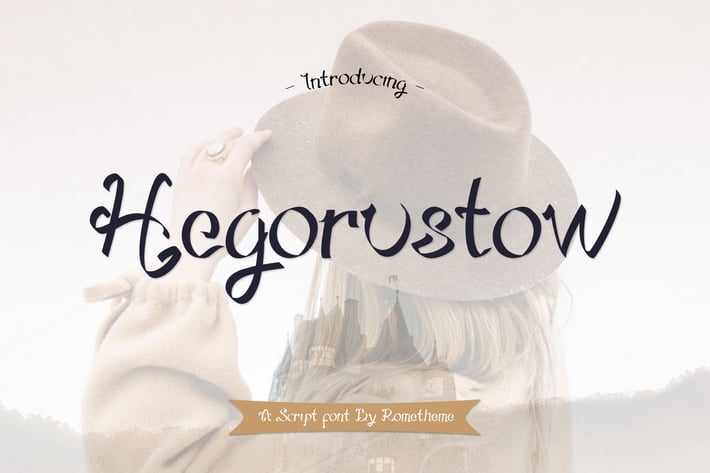
Hegorustow - Display Font
Hegorustow is a luxurious and classy Typeface font, this font looks vintage, elegant, classy, readable, stylish, catchy and easy to use.
Hegorustow Font is the best choice for your professional design projects, including : quotes, album cover, business card, logo, branding, magazines, social media, advertisements, product designs, and many other design project.